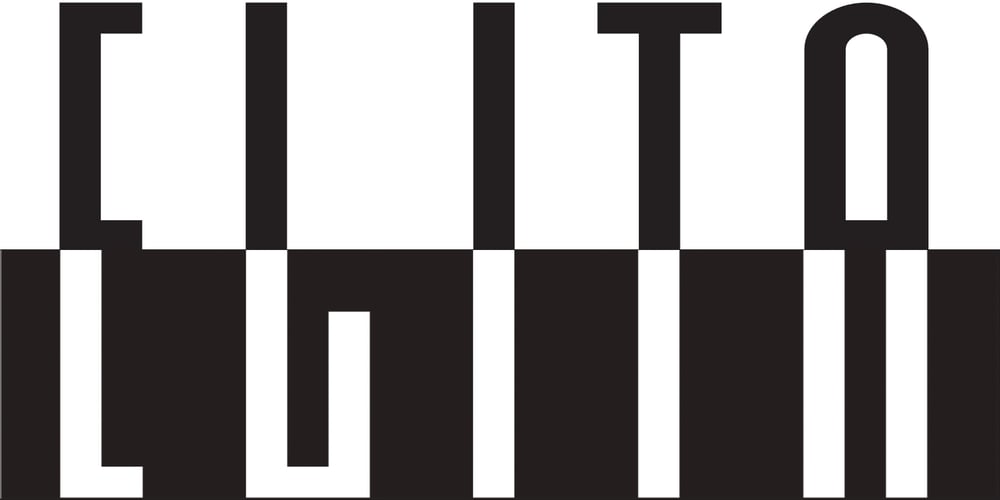
Elita
Elita font
Elita Font Family was designed by Gert Wiescher and published by Wiescher Design. Elita contains 1 styles and family package options. »Elita« is a 100% geometric font designed on a 3 by 16 grid that makes it very slim. There are no optical tricks employed, it is purely geometric. The extreme narrow font design gives it high black and white contrast. The font is not made to write long copy, but it is perfect if you want to employ that magic between pure geometric and almost impossible to read. Just look at the samples and enjoy!